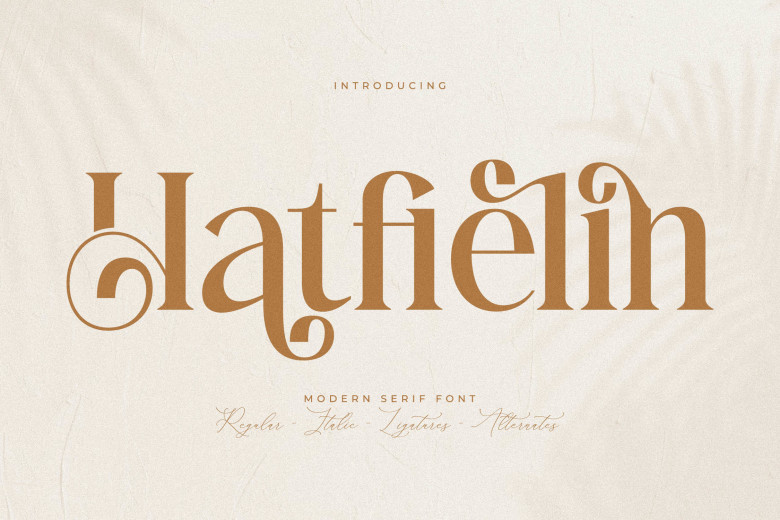
Hatfielin Font
Hatfielin boasts a classic serif typeface for an aesthetic appearance and modern use in logo design, book titles, clothing labels, magazines letters quotes and more.
Hatfielin Serif Font